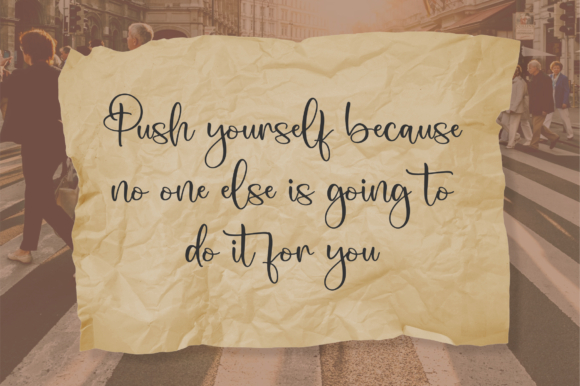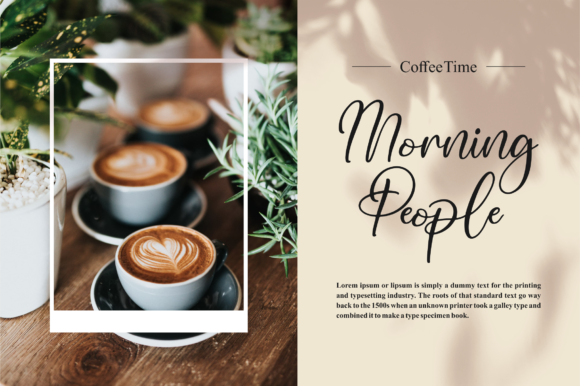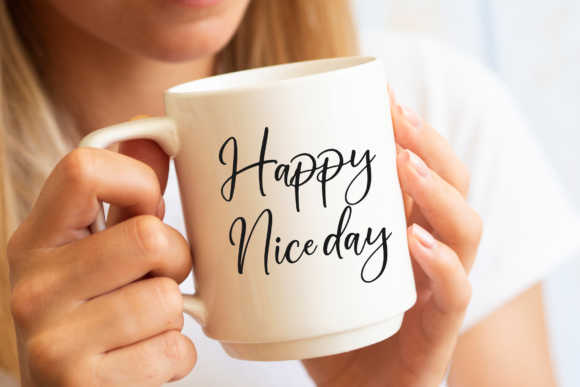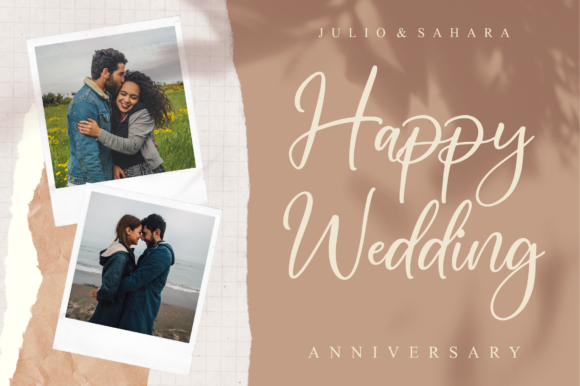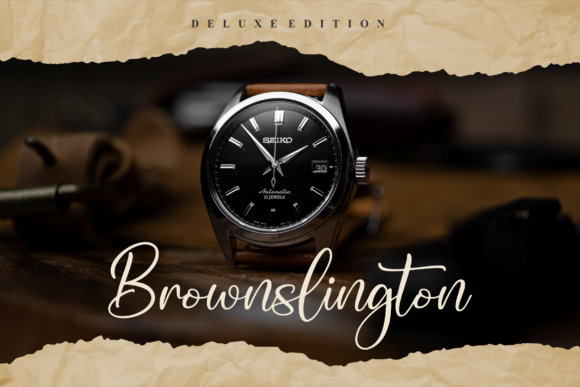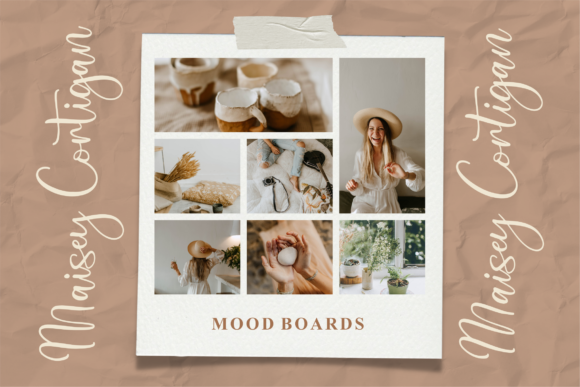
Introducing Diaryta Mailand Font: Elevate Your Designs with Elegance
In the world of typography, a font can make or break a design. For those seeking a touch of elegance and sophistication, Diaryta Mailand Font is a stunning script font that can transform your projects. Whether you’re working on logos, branding projects, homeware designs, product packaging, or any other creative endeavor, Diaryta Mailand is the perfect choice. In this article, we’ll explore the features and benefits of Diaryta Mailand Font and why it’s a must-have for designers and crafters.
A Gorgeous Script Font
Diaryta Mailand Font is a beautiful script font that exudes elegance and refinement. Its flowing lines and curves create a sense of movement and fluidity, making it perfect for designs that require a touch of sophistication. The font’s unique character set and stylish alternates ensure that your text will always look fresh and exciting.
One of the standout features of Diaryta Mailand Font is its versatility. It’s suitable for a wide range of projects, including:
- Logos: Create a lasting impression with a custom logo that showcases your brand’s personality.
- Branding projects: Develop a cohesive brand identity with Diaryta Mailand as your font of choice.
- Homeware designs: Add a touch of elegance to your home decor with custom designs featuring Diaryta Mailand.
- Product packaging: Make your products stand out on store shelves with eye-catching packaging.
- Mugs: Create personalized mugs with beautiful quotes or messages.
- Posters: Design stunning posters that grab attention and leave a lasting impression.
- Special events: Make your event invitations, programs, or decorations truly special with Diaryta Mailand.
Why Choose Diaryta Mailand Font?
So, what sets Diaryta Mailand Font apart from other script fonts? Here are just a few reasons why designers and crafters love this font:
- Unique character set: Diaryta Mailand boasts a distinctive character set that will add a touch of personality to your designs.
- Stylish alternates: The font includes stylish alternates to keep your text looking fresh and exciting.
- Elegant and refined: Diaryta Mailand’s flowing lines and curves create a sense of elegance and refinement.
- High-quality design: The font is designed with precision and attention to detail, ensuring a high-quality finish.
Tips for Using Diaryta Mailand Font
To get the most out of Diaryta Mailand Font, here are some tips to keep in mind:
- Use it sparingly: Diaryta Mailand is a statement font, so use it sparingly to make a lasting impression.
- Experiment with colors: The font looks stunning in a range of colors, so don’t be afraid to experiment and find the perfect hue.
- Pair it with other fonts: Diaryta Mailand pairs beautifully with other fonts, so try combining it with a sans-serif font for added contrast.